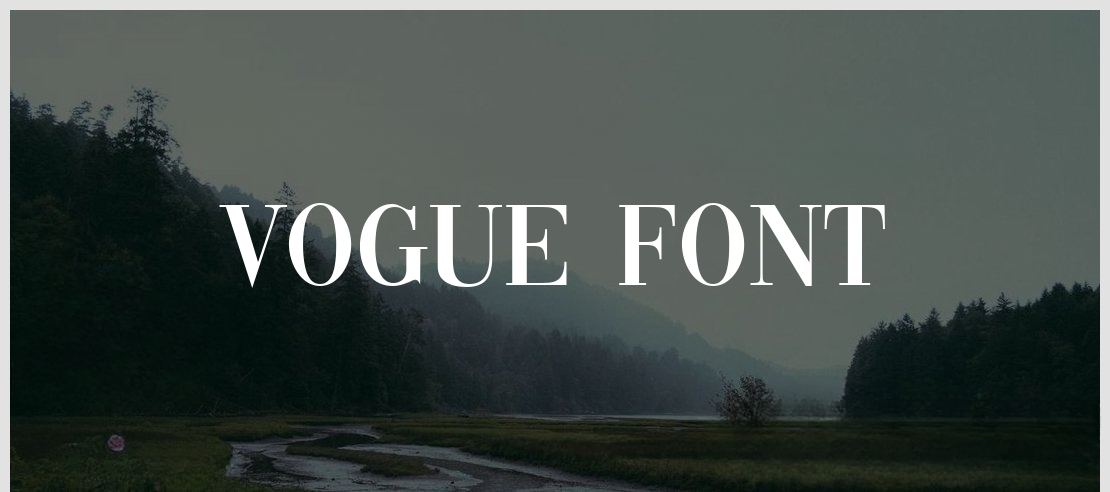
Vogue Font is a member of the Serif Font Family. Vogue is basically a magazine that is based on the fashion and beauty products in America. After some time the magazine becomes popular all over the World. It has been getting demanded by many designers.
It has the quality of creative and neat texture at the same time. So, it can be utilized in reading material as well in stylish designs. This font has perfect readable characters for both big and small size display screens. This font style is also present in the Google font collection which it can easily download. It has been also utilized in Adobe and Canva for texture content in designs.
This simple and stylish font is designed by Vladimir Nikolic. He is a Serbian typeface designer and architect who has created many notable fonts.
This font style is comprised of a single style. This single-style feature includes Numbers, Uppercase Letters, Lowercase Letters, more glyphs, punctuations, and multi-language support.
What type of font is Vogue font?
It is a magazine typeface that has a defined and stylish texture. This font belongs to Serif Font Family and it is designed by Vladimir Nikolic. The original font that was utilized in its title and body text is rotis serif font and it has become famous also.
What font is closest to Vogue Font?
Some of the typographies are really similar to this font texture. But, Rutherford Font has the utmost similarities to this font. So, feel free to use this typeface as an alternative to Rutherford style.